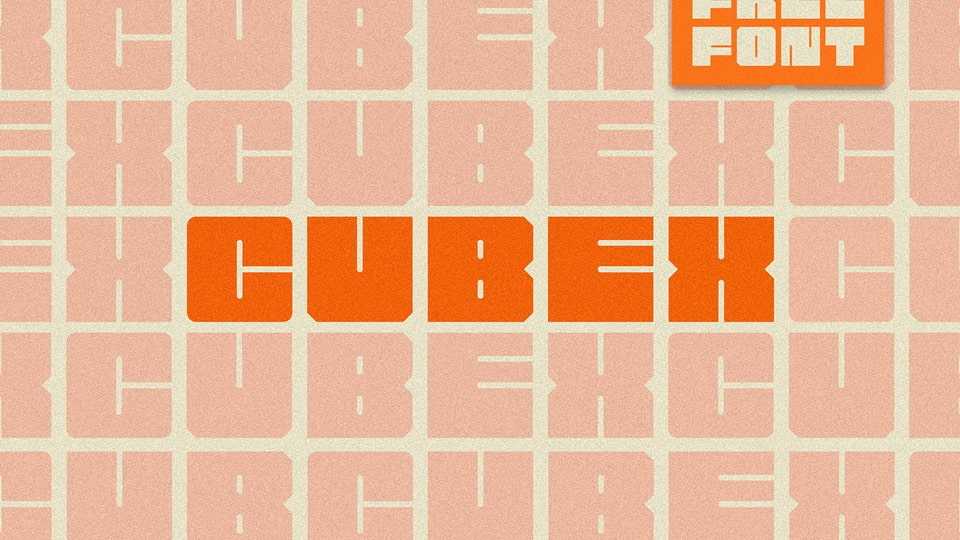
Cubex Font › Fontesk – Download Grátis
Download Cubex font, a display typeface that commands attention with its bold, heavy presence and square-shaped dominance. Cubex font is an unapologetic tribute to strength and solidity, crafted for projects that demand a bold statement and an unmistakable sense of authority.